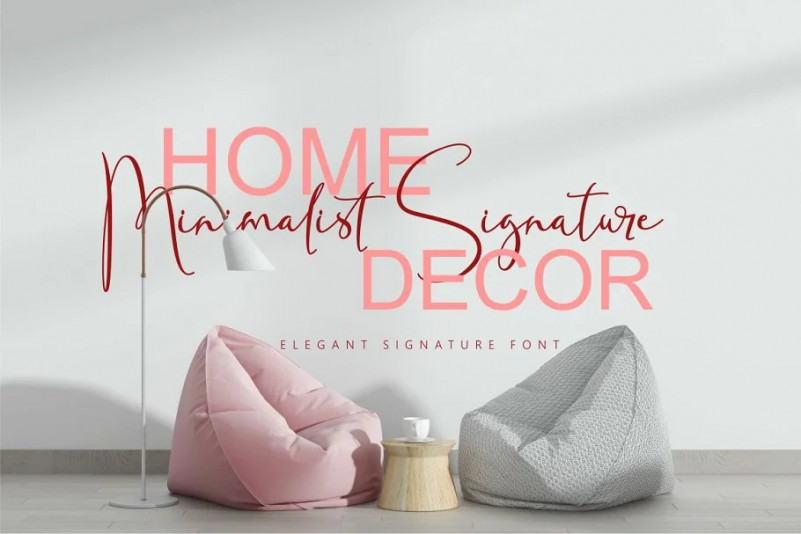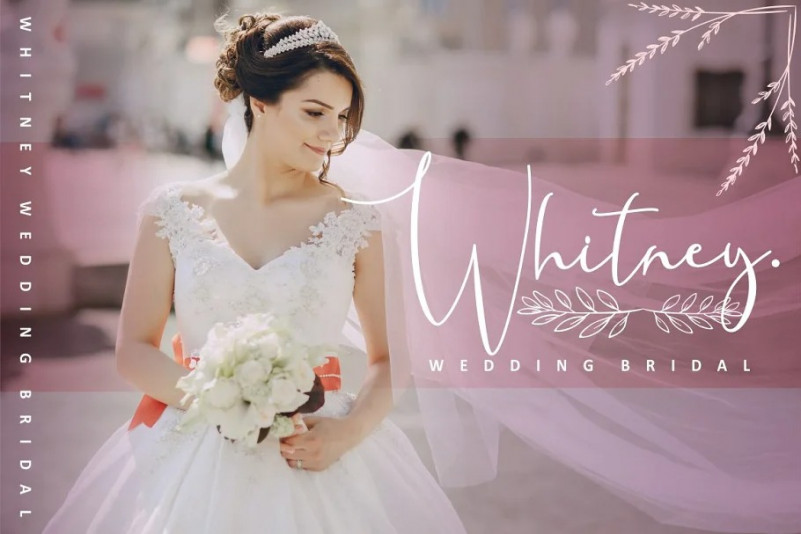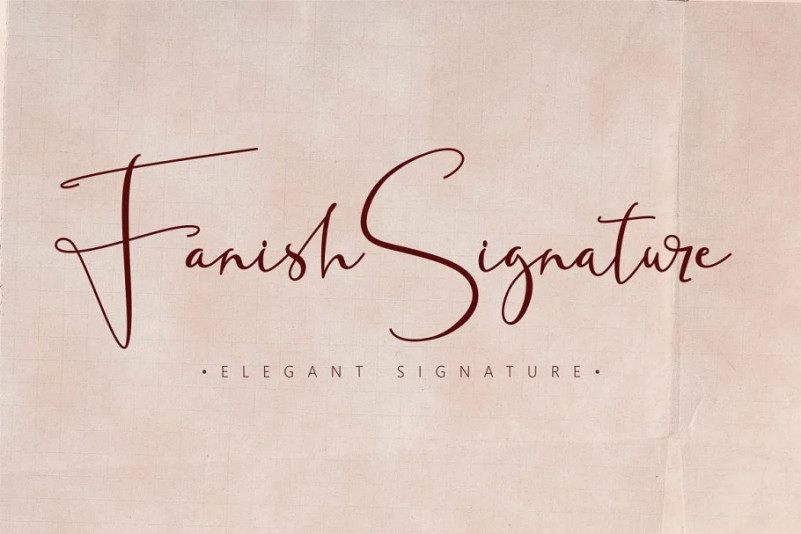
Fanish Signature Typeface
Fanish Signature Font
Introducing a elegant signature font called “Fanish Signature“. This font has been designed from recreate natural handwritten style, include 116 custom beautiful ligature. it’s help you to make great lettering. Fanish Signature best uses for signature, wedding, branding, invitation, heading, cover, poster, logos, quotes, product packaging, header, merchandise, social media & greeting cards and many more. This font is also support multi language.